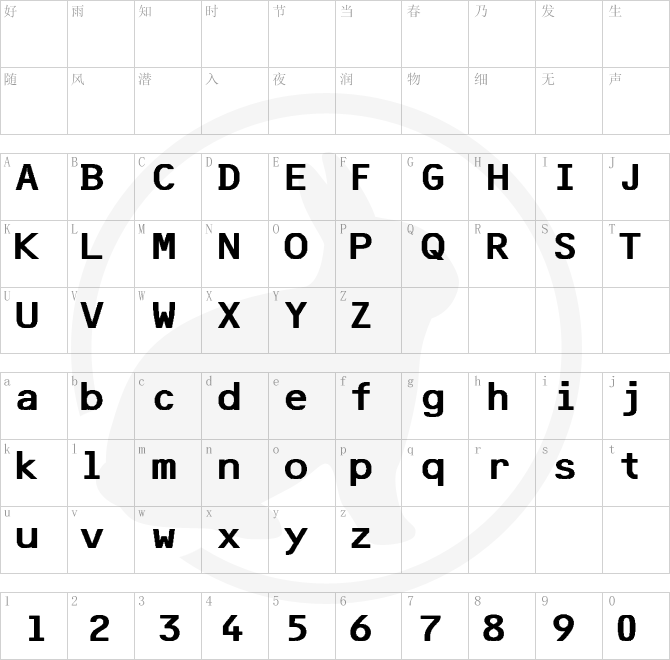
• Font Name:F25 Bank Printer
F25BankPrinter.otf is a very beautiful artistic font, F25BankPrinter.otf is widely used in the design and printing of various books and pictures,F25BankPrinter.otf has a strong visual impact,F25BankPrinter.otf is a commonly used font in newspapers, magazines and books, and is used in posters, e-commerce Poster design, store design, logo design, font design and other fields.F25BankPrinter.